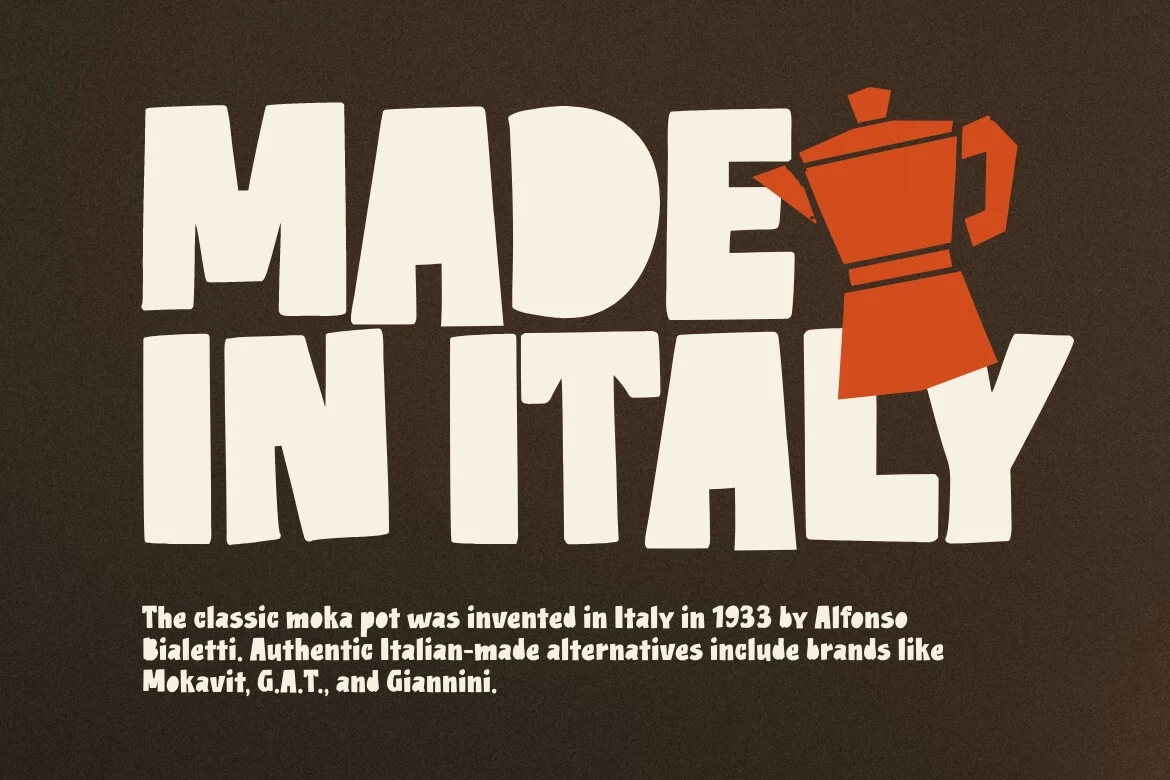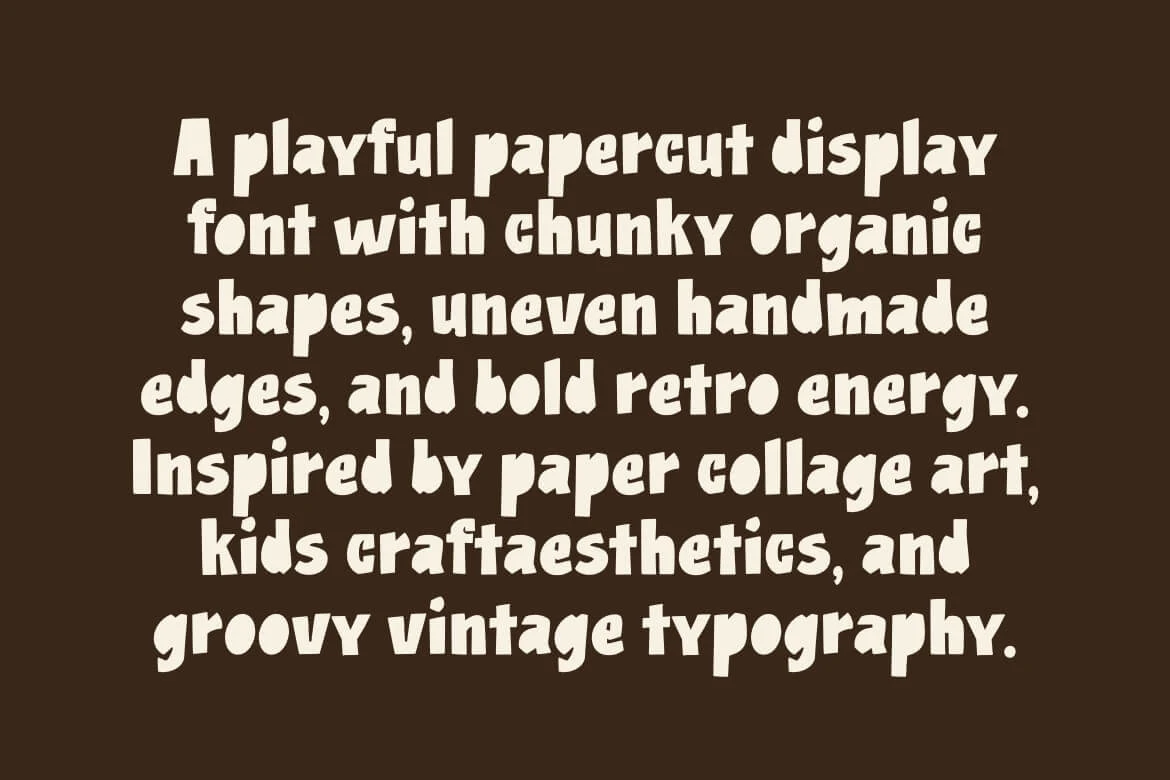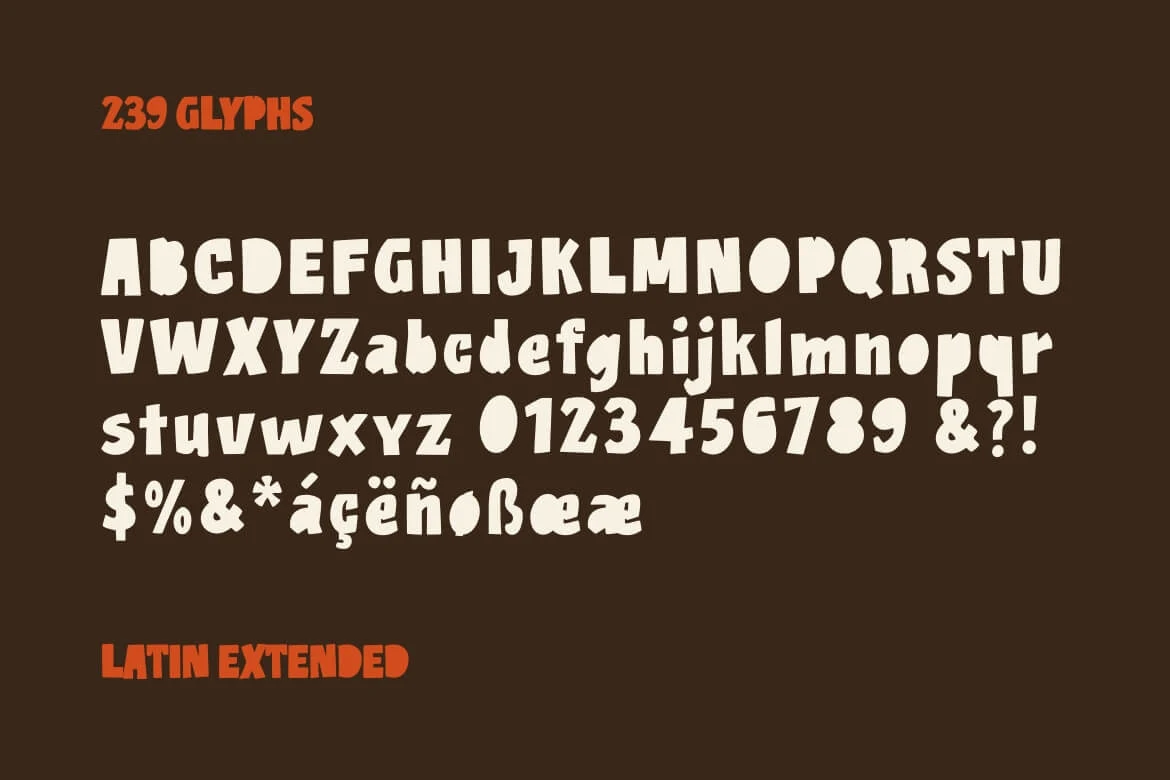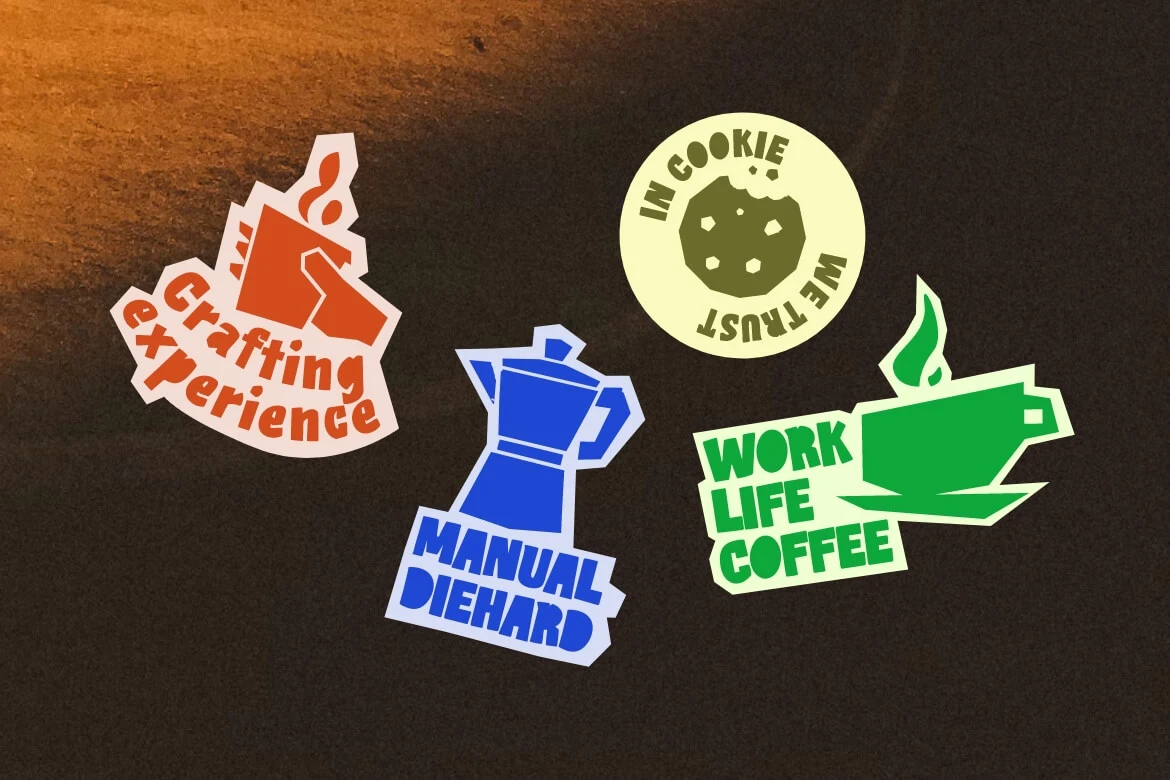
Paper Pop
Paper Pop is a playful display font shaped by the tactile feel of scissors, craft paper, and handmade collages. With its chunky silhouettes and soft cutout edges, it gives your words a warm, physical presence without feeling messy or loud.
Every letterform carries gentle imperfections, resembling paper shapes trimmed and arranged by hand. That uneven rhythm adds spontaneous character to headlines, making it a natural fit for DIY crafts, stickers, Cricut cut files, greeting cards, and playful printables.
It also works comfortably across small brand identities, product packaging, editorial headers, and poster designs where you want typography to feel human and approachable. Paper Pop pairs easily with clean monoline sans-serifs or neutral text fonts, giving your main titles room to stand out while keeping the overall layout calm and clear.